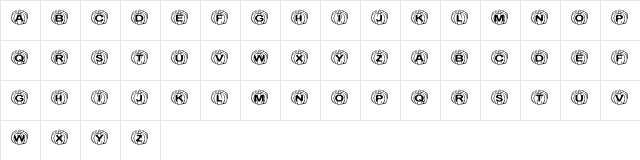
KR Perfect Pumpkin Regular Free Font
KR Perfect Pumpkin Regular
Design Context for KR Perfect Pumpkin
KR Perfect Pumpkin is a composed and adaptable typeface that performs quietly and consistently across a wide range of design contexts.